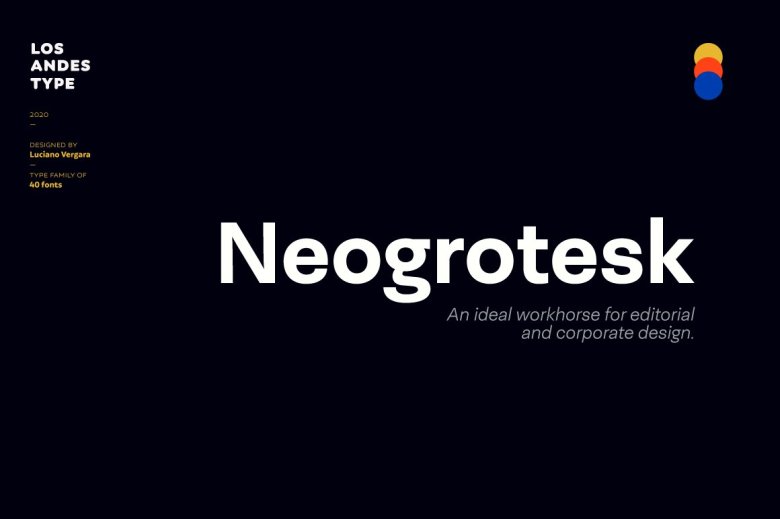
Neogrotesk Font Family
Neogrotesk Font
Neogrotesk Sans Serif Font from Salt Foundry is a versatile, pared-back, workhorse typeface; a functional, ‘neutral’, Latin-flavored design emerged from an exploration of principal themes inherent in the early Grotesks. It comes with several typographic features like alternates, ligatures, small caps, case sensitive forms, arrows, and lining, old style and tabular figures.
Neogrotesk typefaces should be the emperor of all editorial, corporate, and advertising design. It has 5 weights with italics and was designed in the 40-style type and has a character set of 770. Download the full family of 4 sub-families: Essential, Essential Alt, Pro, Small Caps.
Neogrotesk Sans Serif Font Family